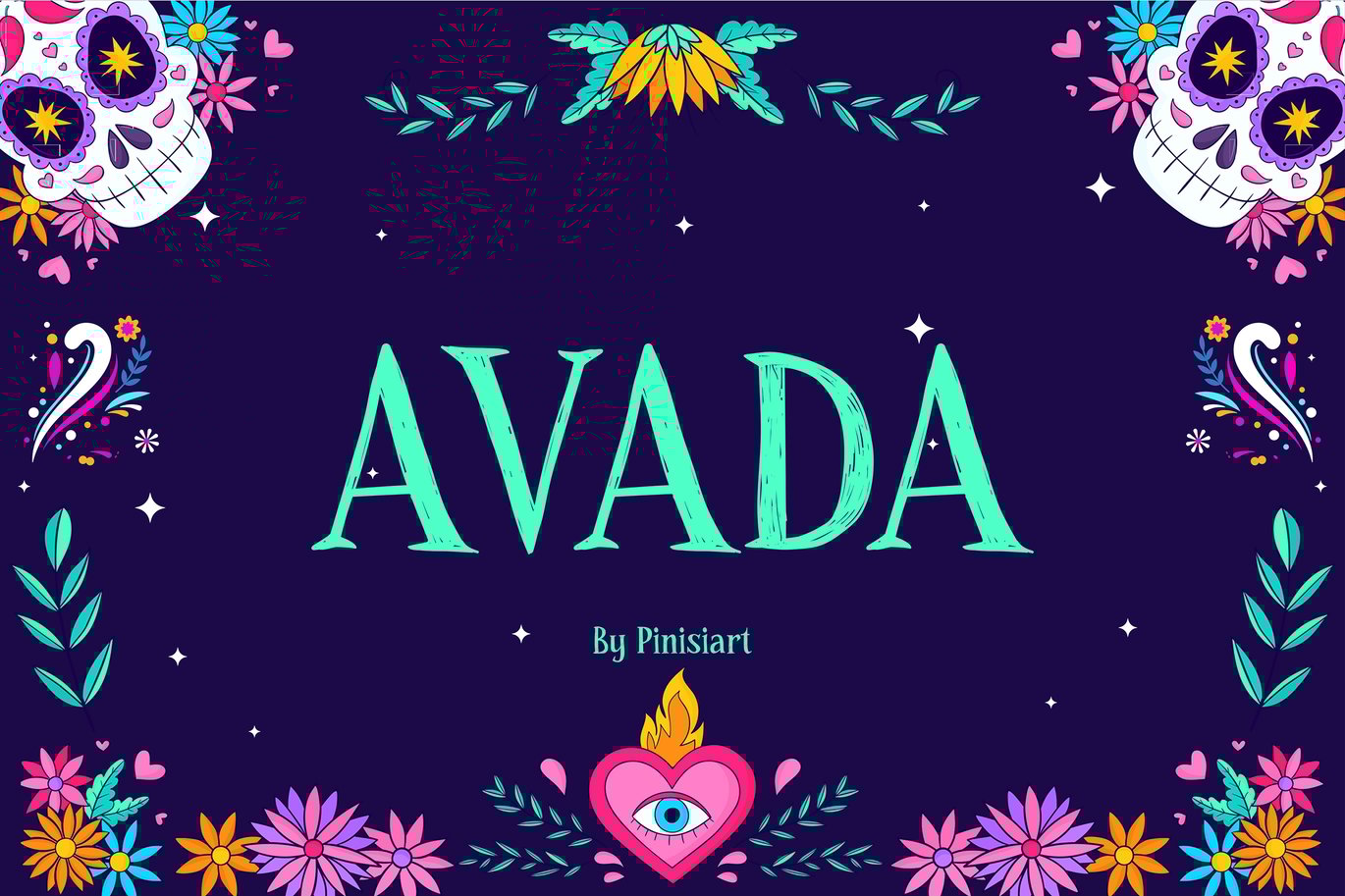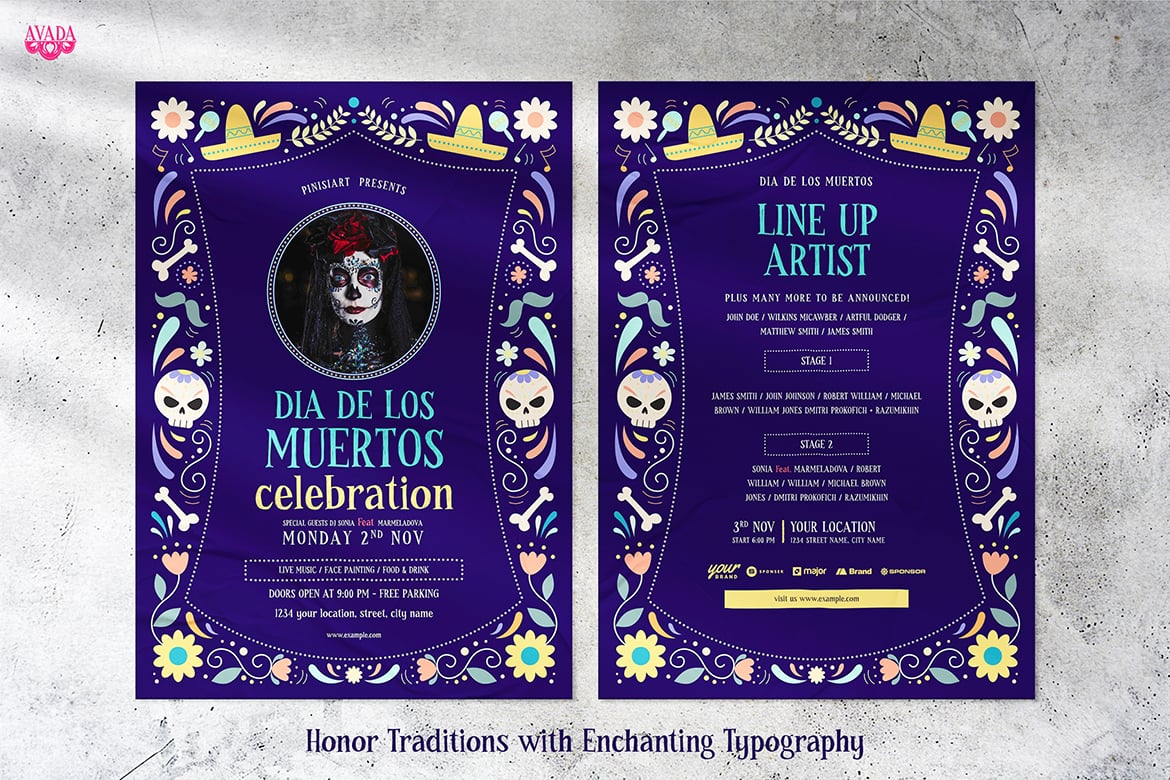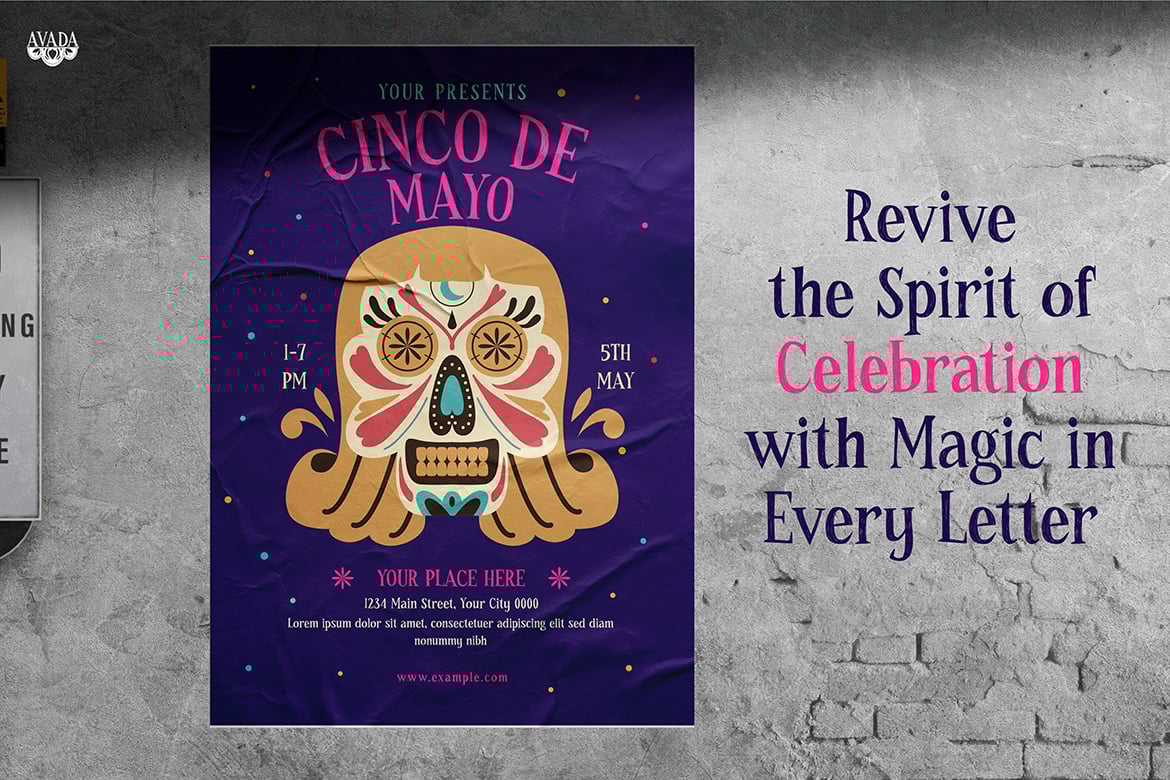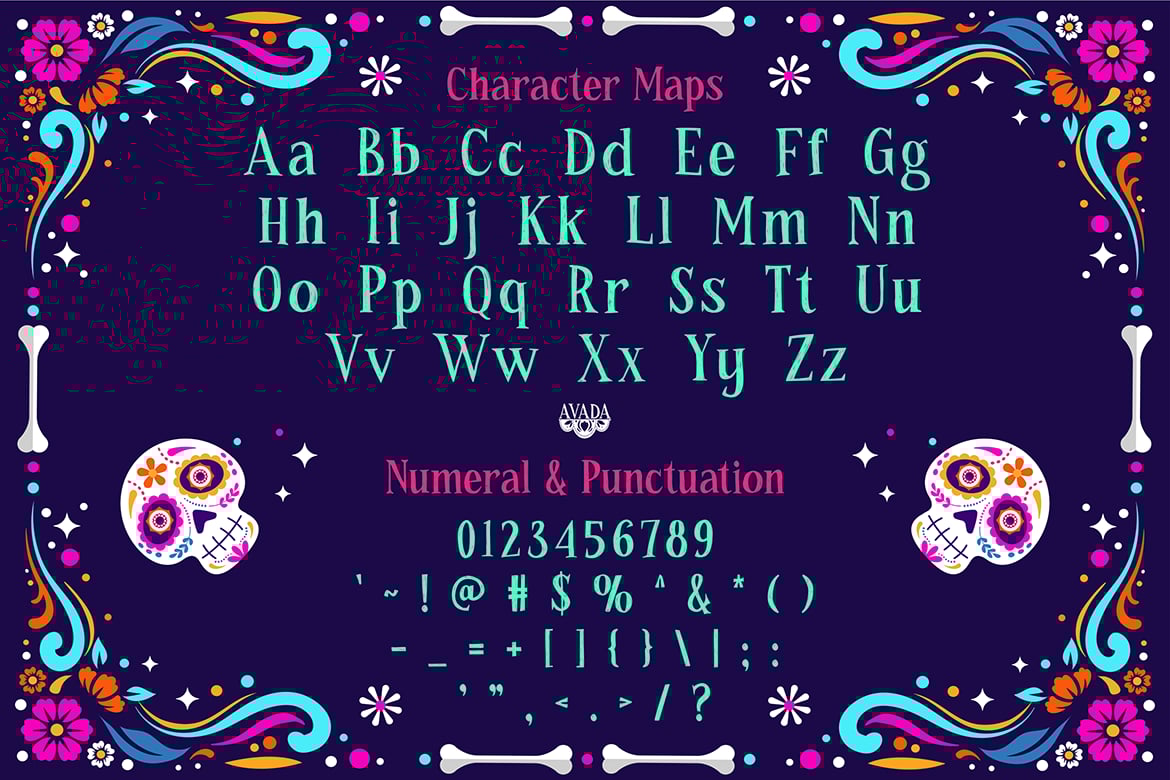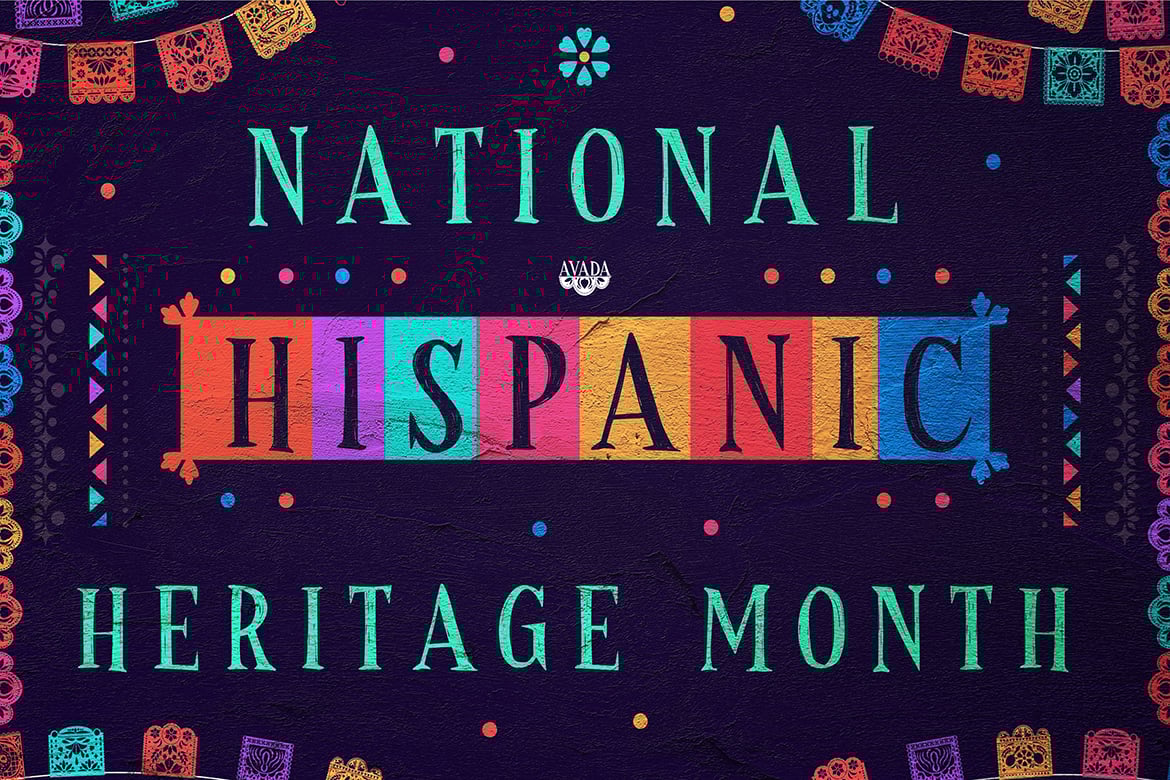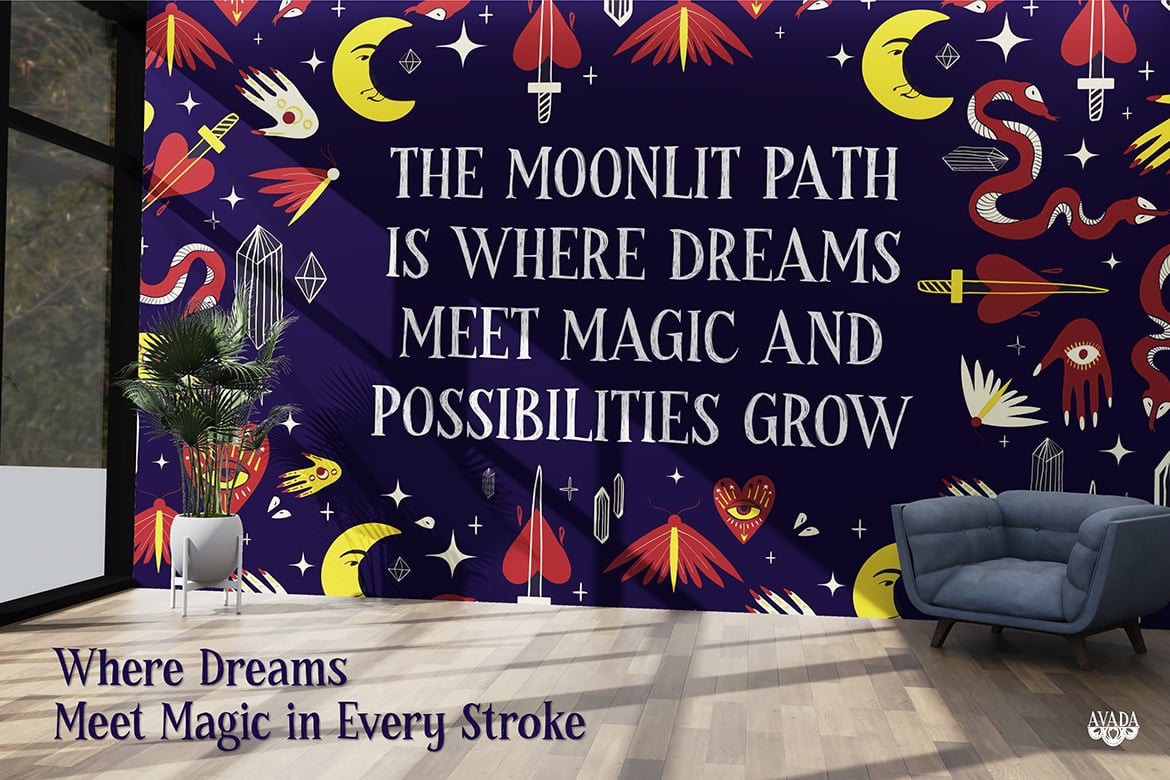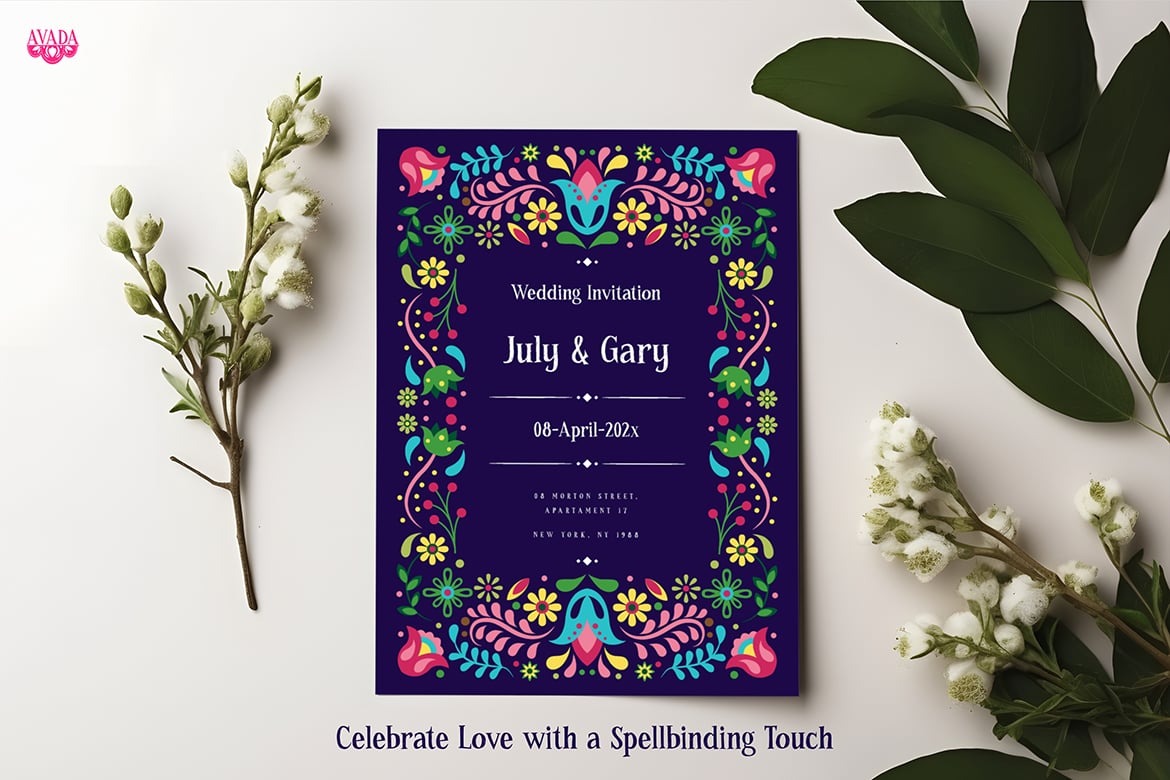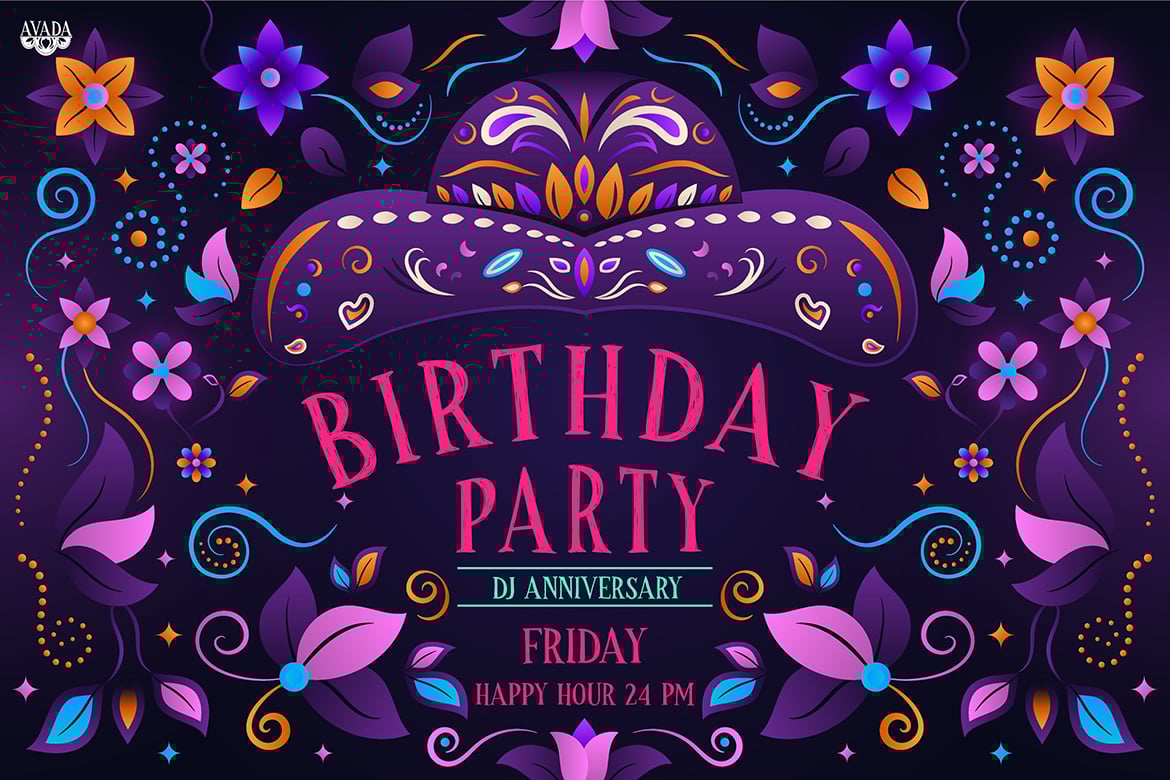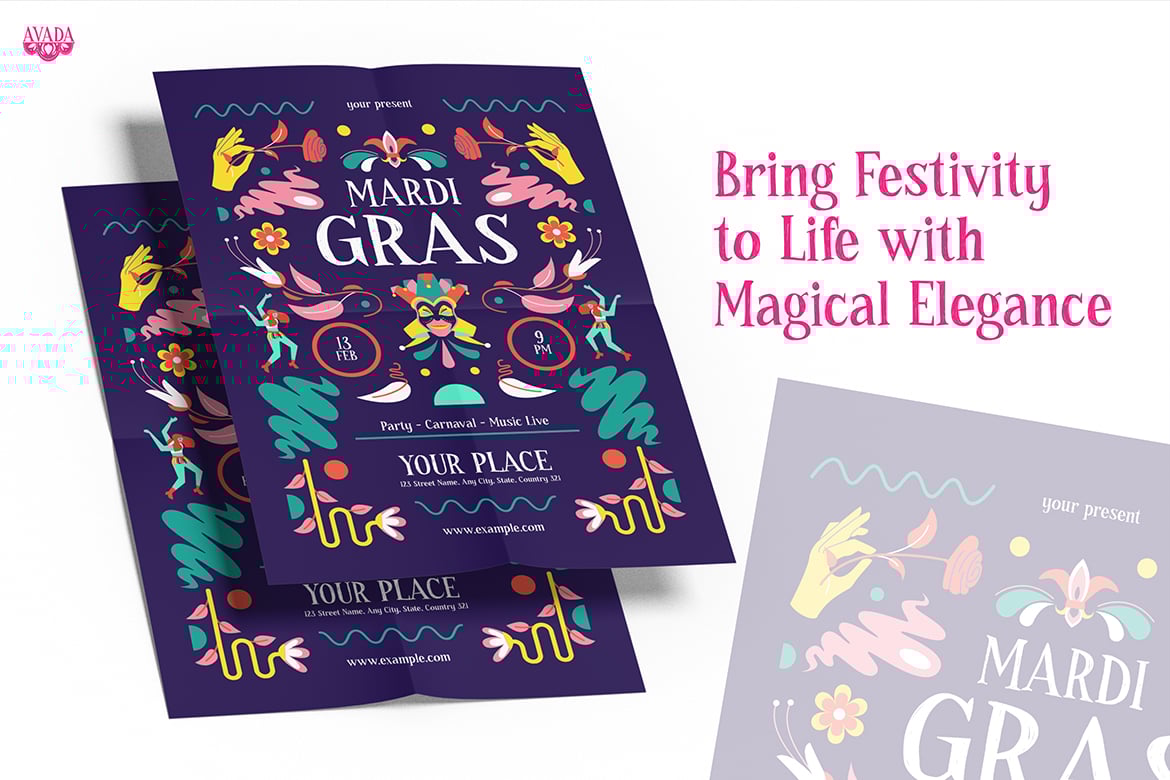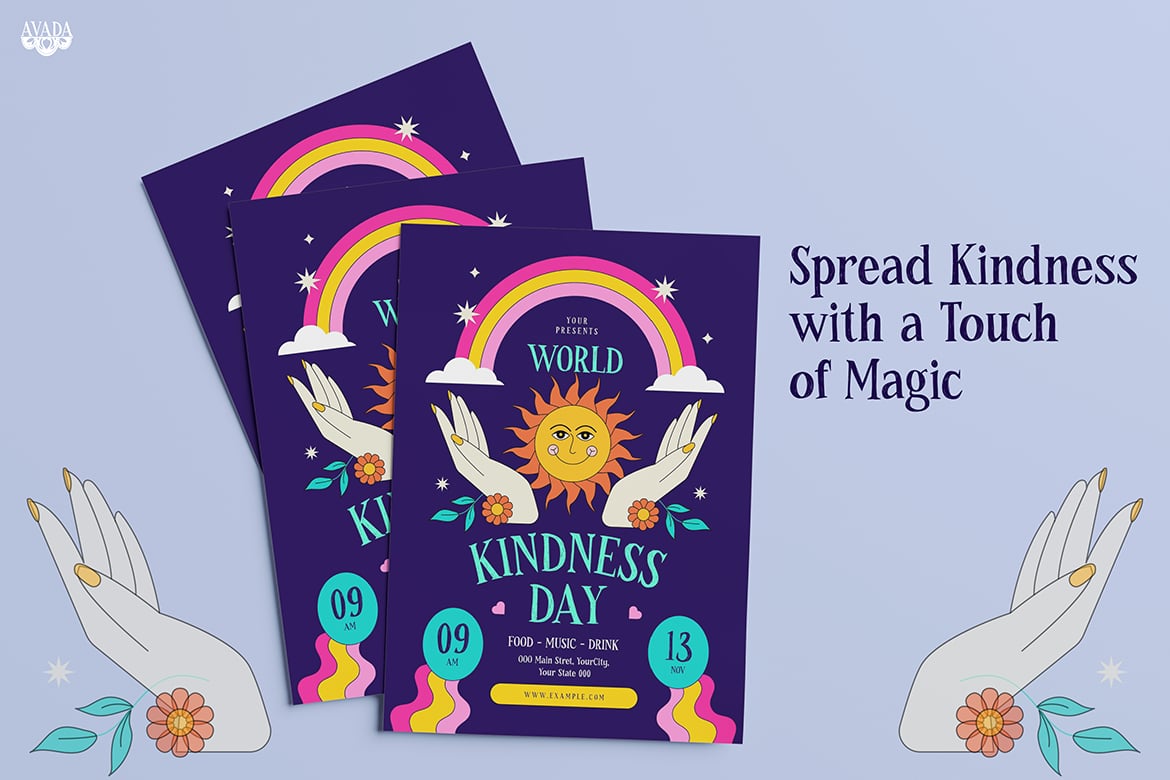
Whimsical Display Font – Avada
Step into a world of festivity and folklore with AVADA, a decorative display font inspired by Mexican traditions, Dia de los Muertos, and Latin American heritage. Its playful serifs and handcrafted feel make it a perfect choice for artistic and cultural-themed projects.
AVADA captures the essence of joyful storytelling and vibrant celebrations, making it ideal for party invitations, event posters, greeting cards, branding, and creative packaging. Whether you’re designing for holiday events, mystical themes, or handcrafted artisanal projects, AVADA’s unique personality will make your text stand out with bold elegance.
Why Choose AVADA?
- Folklore-Inspired Letterforms – A typeface with handcrafted, artistic charm.
- Perfect for Festive & Cultural Themes – A great choice for celebrations, event branding, and decorative projects.
- Versatile & Playful – Works beautifully for posters, book covers, invitations, and packaging.
- Unique Personality – A font that captures the spirit of handcrafted, festive elegance.
- High Readability – While decorative, AVADA remains easy to read across various design applications.
AVADA is perfect for Day of the Dead themes, Latin-inspired branding, artistic product packaging, handcrafted goods, mystical book covers, tarot and spiritual designs, vibrant invitations, and folk art projects. Its unique aesthetic ensures your designs radiate culture and celebration.